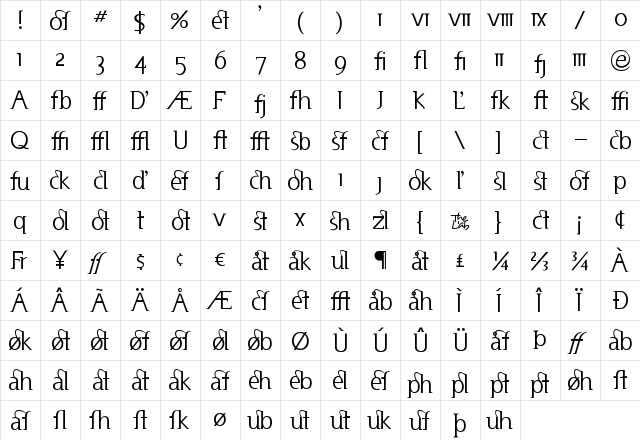
Usenet - Alternates Regular
| Designer | Apostrophe & Alejandro Paul |
Design Context for Usenet - Alternates Typeface
Usenet - Alternates is a composed and adaptable typeface that performs quietly and consistently across a wide range of design contexts.